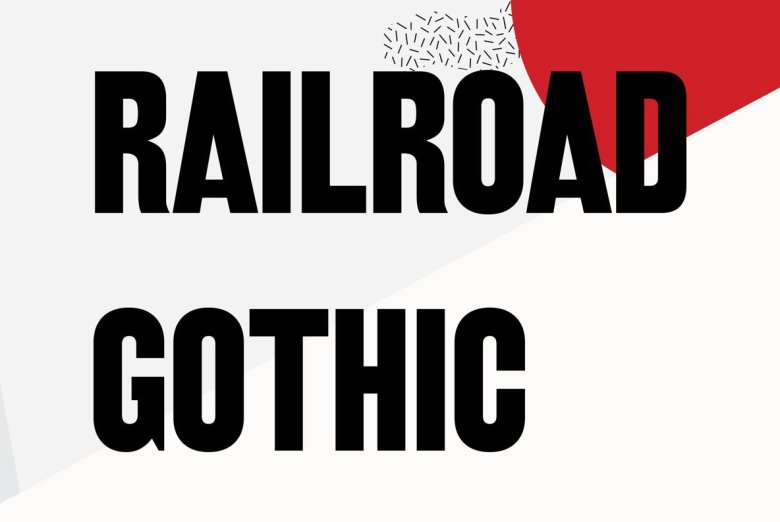
Railroad Gothic Font
Railroad Gothic CC Font is a sans serif retro typeface, a revival of Railroad Gothic typeface. Made from font designer named Cowboy Collective and Indestructible Type . It’s a big, bold, and often ugly condensed sans serif font offered by American Type Founders by as early as 1900. Although refined somewhat with later offerings, Railroad Gothic in its initial release included many amateurish decisions and inconsistencies.
Railroad Gothic CC Font is an exploration of the imperfect. Letters are riddled with inconsistencies, corners are rounded as if cheap ink were bleeding on cheap paper. No attempt has been made to justify or codify the design decisions. It’s ugly, but that’s kind of the point.